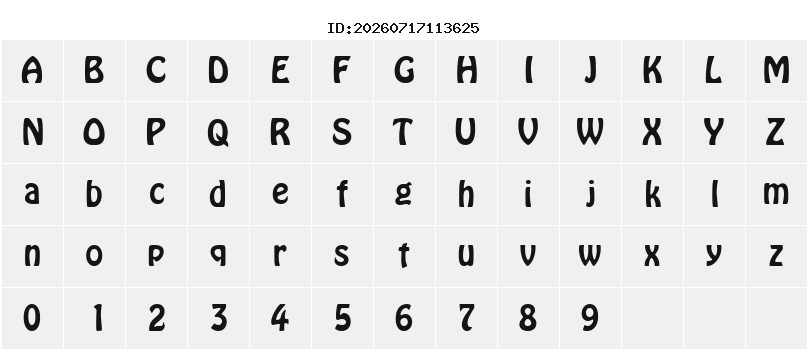
BoffoSSK Preview
• Font Name: BoffoSSK
• Font ID: Altsys Metamorphosis:BoffoSSK Regular
• Full Font Name: BoffoSSK Regular
• Version: Altsys Metamorphosis:8/25/94
• PostScript Name: BoffoSSK
• Character Count: 202
About BoffoSSK.ttf
BoffoSSK.ttf is a modern, elegant sans-serif font designed for ultimate readability and visual harmony. Perfect for branding, headlines, web design, and print materials.